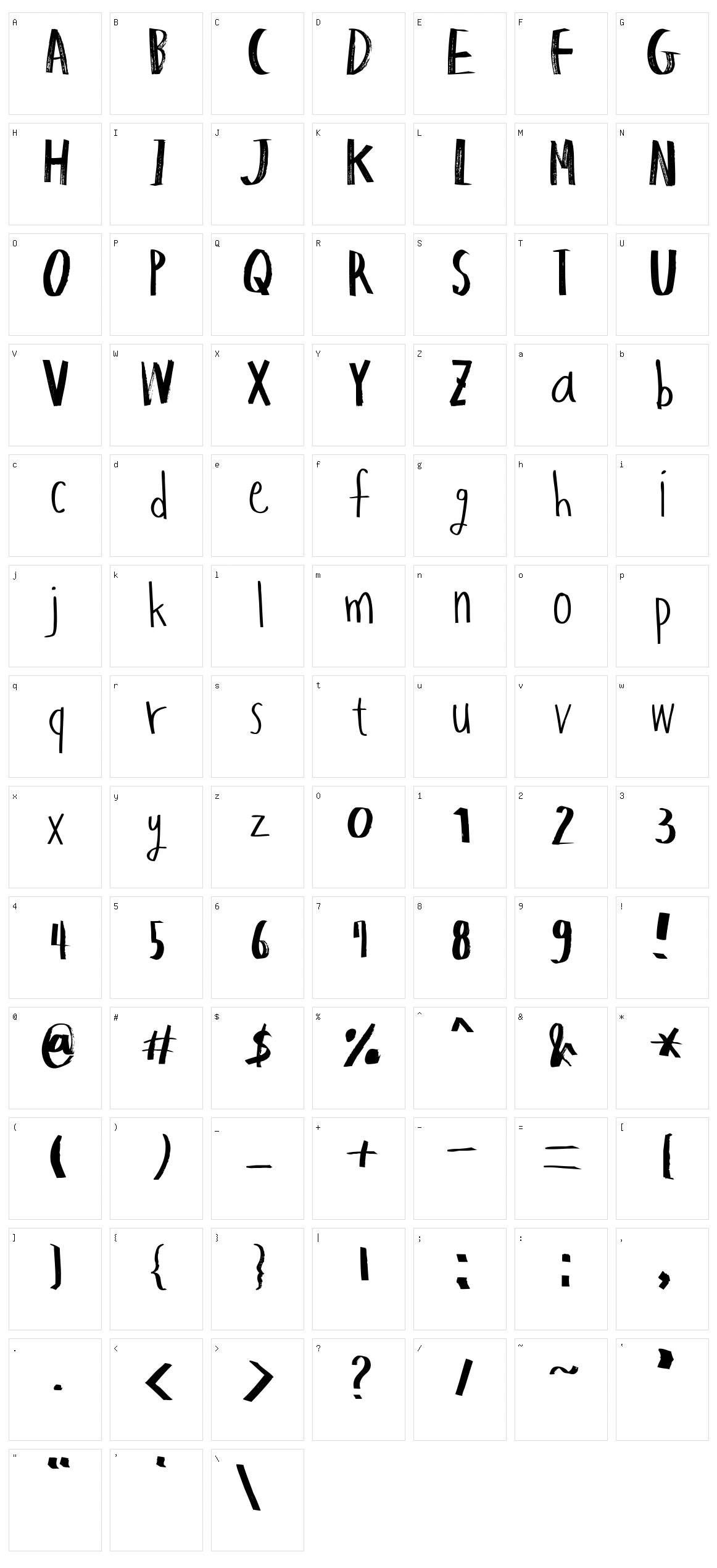
Hapole Markerpen
Description: The free font Hapole Markerpen is carefully designed by Hapole Lee Jinam, showcasing a thoughtful balance of creativity and usability and falls under the Script font style. When you download the ZIP file, it contains only 391.87 KB of font files, making it lightweight and quick to download. Please review the license details below to understand permitted usage and distribution rights. If license information is not available, we recommend using this font for personal projects only or contacting the author directly for commercial usage permissions.